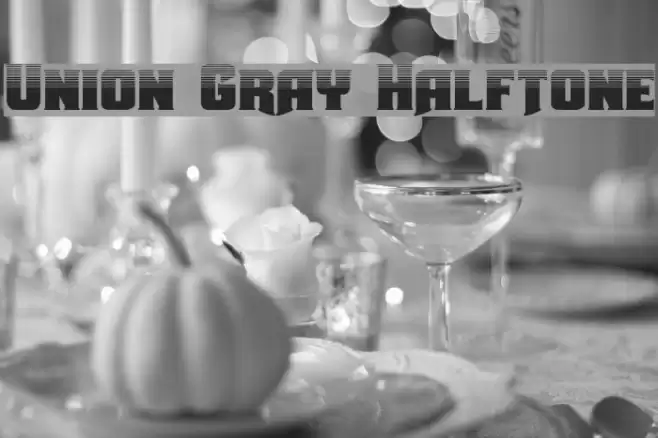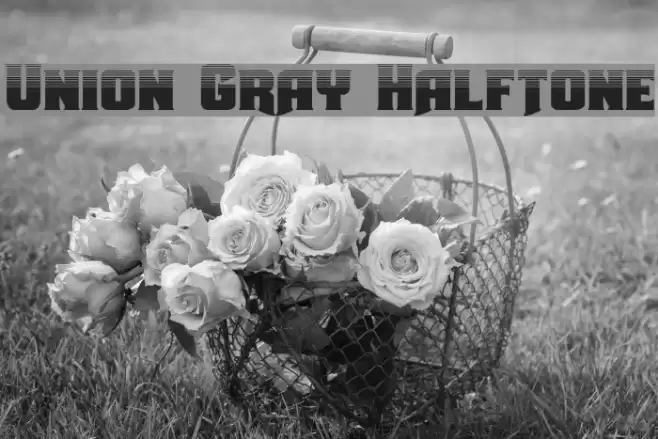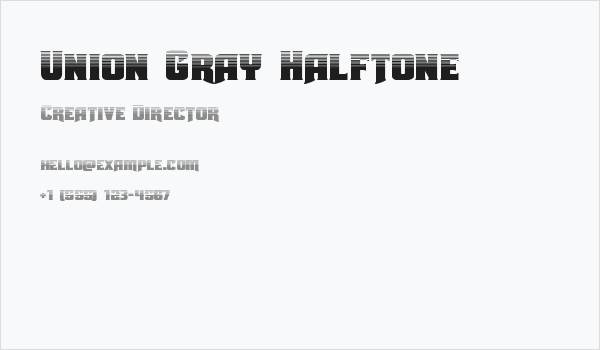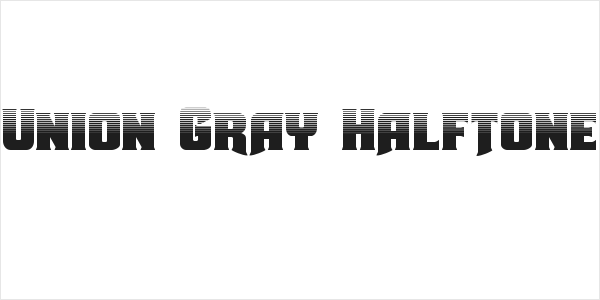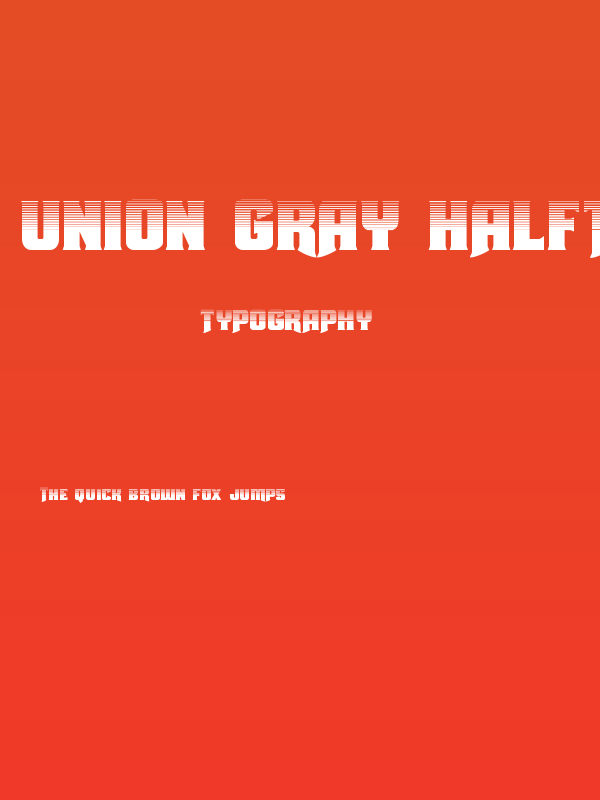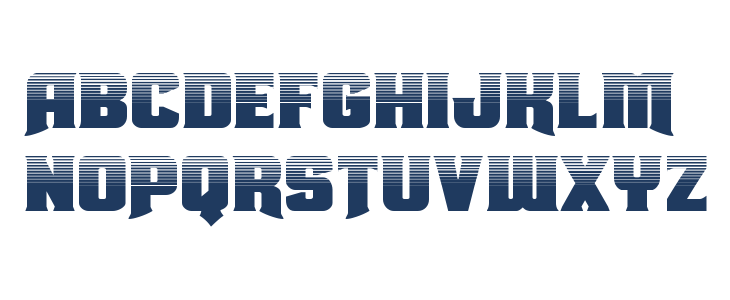
Union Gray Halftone Font
Union Gray Halftone Description
This font features a bold, decorative style with a unique halftone effect that creates a sense of depth and texture. The uppercase letters are prominent and impactful, making them ideal for attention-grabbing headlines. The design incorporates horizontal lines that gradually fade, giving a dynamic and modern appearance. The characters are wide and have a strong presence, suitable for projects that require a bold statement. The numbers and special characters maintain the same stylistic approach, ensuring consistency across all text elements.
| Proposed Projects | Ideal for posters, logos, and branding materials that require a bold and modern look. |